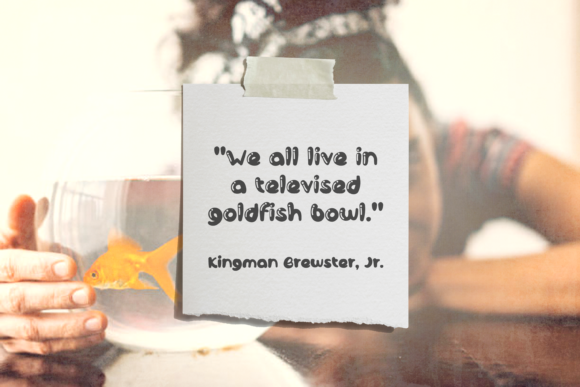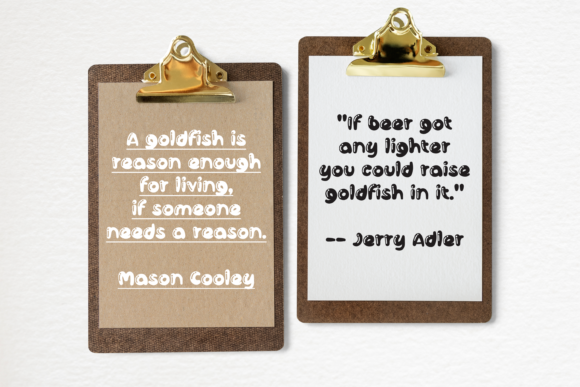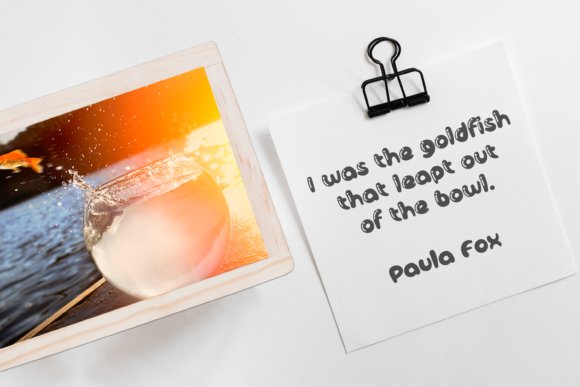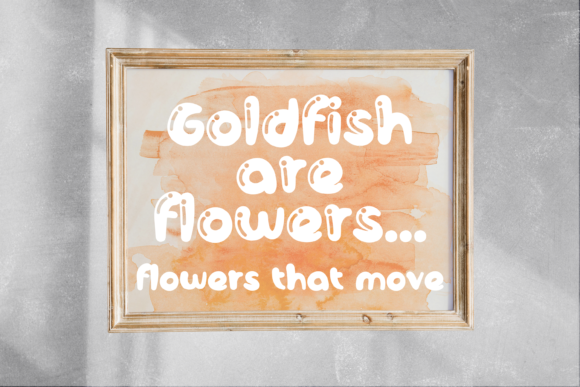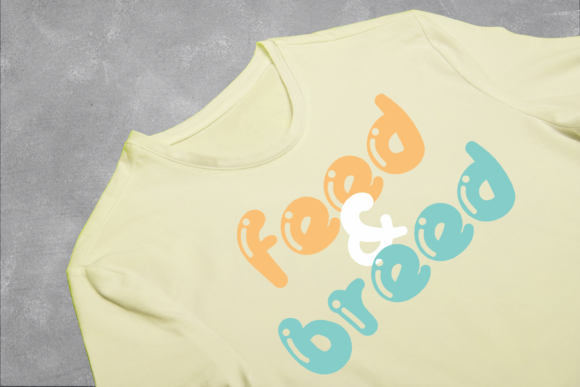
Introducing Goldfish Font: The Ultimate Glossy Display Font for Creative Projects
Are you tired of using the same old fonts for your creative projects? Look no further! Goldfish Font is here to revolutionize your designs with its incredibly stylish and glossy display. This huge and cute font is perfect for making a statement and adding a touch of elegance to your work. In this article, we’ll dive into the features and benefits of Goldfish Font, and explore how you can use it to take your designs to the next level.
What is Goldfish Font?
Goldfish Font is a unique and eye-catching display font that is sure to capture attention. Its glossy finish gives it a premium look that’s perfect for logos, quotes, invitations, business cards, PowerPoint presentations, and more. The font’s stylish and modern design makes it an excellent choice for designers and crafters looking to add a touch of sophistication to their work.
Key Features of Goldfish Font
- Huge and Cute: Goldfish Font is a large and adorable font that’s sure to make a statement. Its oversized letters are perfect for headlines, titles, and other display text.
- Glossy Finish: The font’s glossy finish gives it a premium look that’s sure to impress. The glossy effect adds depth and dimension to the letters, making them stand out even more.
- Incredibly Stylish: Goldfish Font has an incredibly stylish look that’s perfect for designers and crafters who want to add a touch of elegance to their work. The font’s modern design makes it suitable for a wide range of projects, from logos and branding to invitations and presentations.
- Versatile: Goldfish Font is a versatile font that can be used for a wide range of projects. Whether you’re working on a logo, invitation, or presentation, this font is sure to make your design stand out.
How to Use Goldfish Font
Goldfish Font is easy to use and can be incorporated into a wide range of projects. Here are some ideas to get you started:
- Logos and Branding: Use Goldfish Font to create a memorable and stylish logo for your business or brand. The font’s glossy finish and modern design make it perfect for creating a professional and sophisticated brand identity.
- Invitations and Stationery: Add a touch of elegance to your invitations and stationery with Goldfish Font. The font’s stylish and modern design makes it perfect for weddings, parties, and other special occasions.
- PowerPoint Presentations: Use Goldfish Font to add a touch of sophistication to your PowerPoint presentations. The font’s large and cute design makes it perfect for headings and titles, while its glossy finish adds a professional touch.
- Business Cards: Create memorable and stylish business cards with Goldfish Font. The font’s modern design and glossy finish make it perfect for creating a professional and eye-catching business card.
Benefits of Using Goldfish Font
There are many benefits to using Goldfish Font for your creative projects. Here are just a few:
- Stand Out: Goldfish Font is a unique and eye-catching font that’s sure to make your design stand out. Its glossy finish and modern design make it perfect for creating a memorable and stylish brand identity.
- Easy to Use: Goldfish Font is easy to use and can be incorporated into a wide range of projects. Whether you’re working on a logo, invitation, or presentation, this font is sure to make your design look professional and sophisticated.
- Versatile: Goldfish Font is a versatile font that can be used for a wide range of projects. Whether you’re a designer, crafter, or business owner, this font is sure to be a valuable addition to your toolkit.
Goldfish Font is a unique and eye-catching display font that’s perfect for designers and crafters looking to add a touch of elegance to their work. Its glossy finish and modern design make it suitable for a wide range of projects, from logos and branding to invitations and presentations. With its ease of use and versatility, Goldfish Font is sure to be a valuable addition to your toolkit. So why wait? Download Goldfish Font today and start creating stunning designs that are sure to impress!